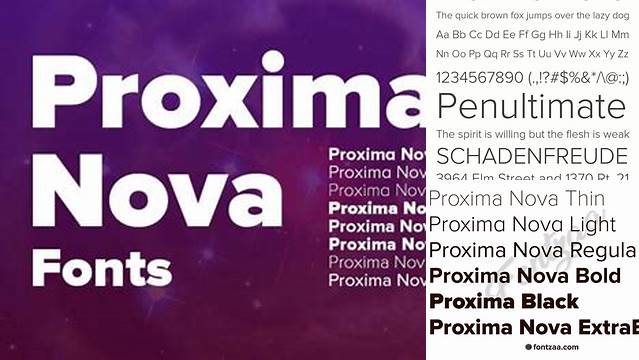
Proxima Nova: A Deep Dive into the Font's Design and Characteristics
Alright, let's start with the basics, shall we? The Proxima Nova font family is a geometric sans-serif typeface designed by Mark Simonson. It was released in 2005, and it quickly became a favorite among designers. What makes Proxima Nova so special? Well, a few things. First, it's incredibly versatile. You can use it for pretty much anything, from headlines and body text to website design and branding. Its clean lines and modern aesthetic give it a timeless appeal. The font family itself has a whopping 48 different fonts, including various weights and widths, so you've got a ton of options to play with. Its clarity is also worth mentioning. The characters are very readable, even at smaller sizes, which is crucial for body text. The font's geometric shapes give it a contemporary feel, while still retaining a sense of friendliness and approachability. If you're looking for a font that's both stylish and functional, Proxima Nova is a fantastic choice. You can find it used in a wide range of applications, from user interfaces to printed materials, and it always looks good.
The font's design is based on the geometric sans-serif styles of the early 20th century, but with a modern twist. Simonson refined earlier designs to create a font that's both beautiful and highly functional. Proxima Nova is known for its excellent legibility, making it suitable for extended reading. The various weights and widths available make it easy to create a visual hierarchy and add emphasis to your design. Also, its consistent character proportions contribute to its visual harmony. The open counters and generous x-height contribute to its readability. The font is often described as being clean, balanced, and friendly, and its popularity certainly reflects these qualities. The designer did a brilliant job in creating a font that is both elegant and highly usable. Also, Proxima Nova works great in both digital and print formats. From websites to business cards, the font renders smoothly and looks professional. This fontâs flexibility is a huge advantage, as it can adapt to many different design scenarios without looking out of place.